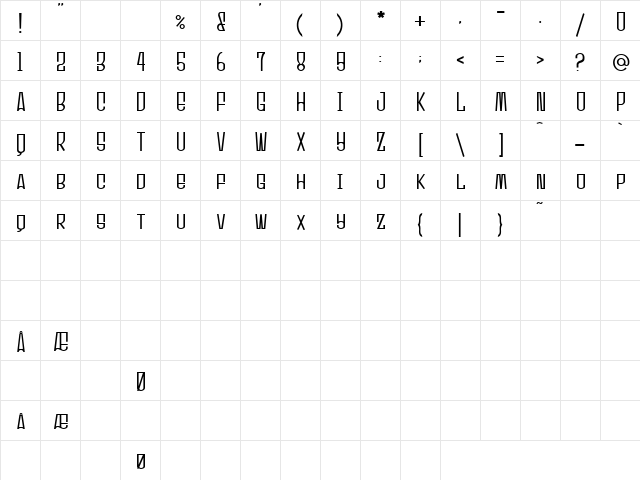
Ultrasonik Regular Font Preview
Ultrasonik Regular
Ultrasonik Regular Font Details
Design Context for Ultrasonik Typeface
Ultrasonik is a composed and adaptable typeface that performs quietly and consistently across a wide range of design contexts.